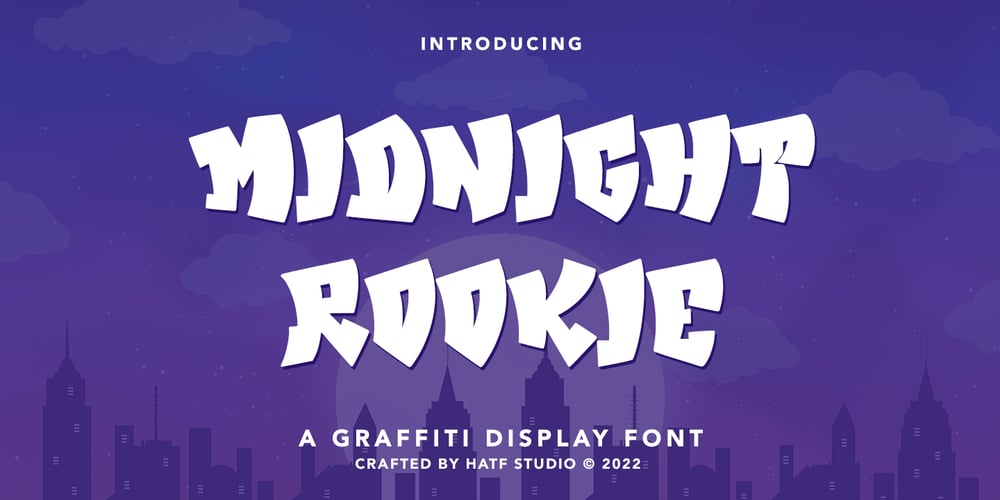
Midnight Rookie Font Family was designed by Asep Rendi and published by Hatftype. Midnight Rookie contains 1 styles and family package options. Midnight Rookie – A Graffiti Display Font is a free style font that has the characteristics of street art that shows freedom and is filled with unique characters.Features : • Character Set A-Z • Numerals & Punctuations (OpenType Standard) • Accents (Multilingual characters) • Ligature • Alternate.There it is. I really hope you enjoy it. Comments & likes are always welcome and accepted.